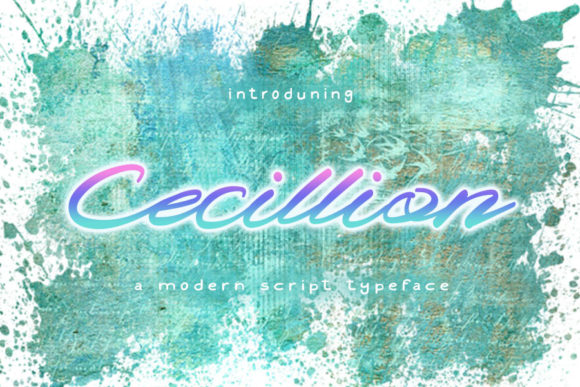
Cecillion Font: Elevate Your Designs with Elegance and Sophistication
In the world of typography, a font can make or break a design. A well-crafted font can elevate your creation from ordinary to extraordinary, while a poorly chosen one can detract from the overall impact. If you’re a designer or crafter looking to add a touch of elegance and sophistication to your work, look no further than the Cecillion Font. This ravishing script font is neatly crafted and highly detailed, making it a wonderful asset to your font library.
The Characteristics of Cecillion Font
Cecillion Font is a script font that exudes luxury and refinement. Its intricate details and flowing lines make it perfect for a variety of design applications, from branding and advertising to packaging and stationery. The font is highly legible, even at small sizes, making it versatile and practical. Whether you’re creating a logo, heading, or body text, Cecillion Font is sure to make a lasting impression.
Why Choose Cecillion Font?
So, what sets Cecillion Font apart from other fonts in its category? Here are just a few reasons why designers and crafters love this font:
- Unique and eye-catching: Cecillion Font has a distinctive look that will set your design apart from the crowd. Its elegant lines and flourishes add a touch of sophistication and glamour to any project.
- Highly versatile: This font can be used for a wide range of design applications, from digital projects like websites and social media graphics to print materials like brochures and business cards.
- Easily readable: Despite its ornate details, Cecillion Font is highly legible, making it perfect for body text as well as headings and titles.
- Customizable: With its range of weights and styles, Cecillion Font can be tailored to suit your design needs. Experiment with different colors, textures, and effects to create a unique look.
How to Use Cecillion Font in Your Designs
Now that you’re convinced of the Cecillion Font’s merits, let’s explore some ways to incorporate it into your designs:
- Logos and branding: Use Cecillion Font to create a luxurious and memorable logo that reflects your brand’s personality and values.
- Advertising and marketing materials: Add a touch of elegance to your ads, brochures, and flyers with Cecillion Font. Its sophisticated look is sure to grab attention and leave a lasting impression.
- Packaging and labels: Elevate your product packaging with Cecillion Font. Its ornate details and flowing lines will add a touch of luxury to any product.
- Stationery and paper goods: Use Cecillion Font to create beautiful stationery, business cards, and greeting cards that showcase your personal style.
Tips for Pairing Cecillion Font with Other Fonts
While Cecillion Font is stunning on its own, it can also be paired with other fonts to create a unique and visually appealing design. Here are some tips for pairing Cecillion Font with other fonts:
- Contrast with sans-serif fonts: Pair Cecillion Font with a clean sans-serif font like Arial or Helvetica to create a striking contrast.
- Match with script fonts: Combine Cecillion Font with another script font that has a similar style or era to create a cohesive look.
- Experiment with serif fonts: Pair Cecillion Font with a serif font like Times New Roman or Georgia to add depth and texture to your design.
In conclusion, Cecillion Font is a versatile and elegant script font that can elevate any design. Its intricate details, flowing lines, and high legibility make it perfect for a wide range of applications, from branding and advertising to packaging and stationery. Whether you’re a designer or crafter, Cecillion Font is sure to become a valuable addition to your font library. So why not give it a try and see the difference it can make in your designs?